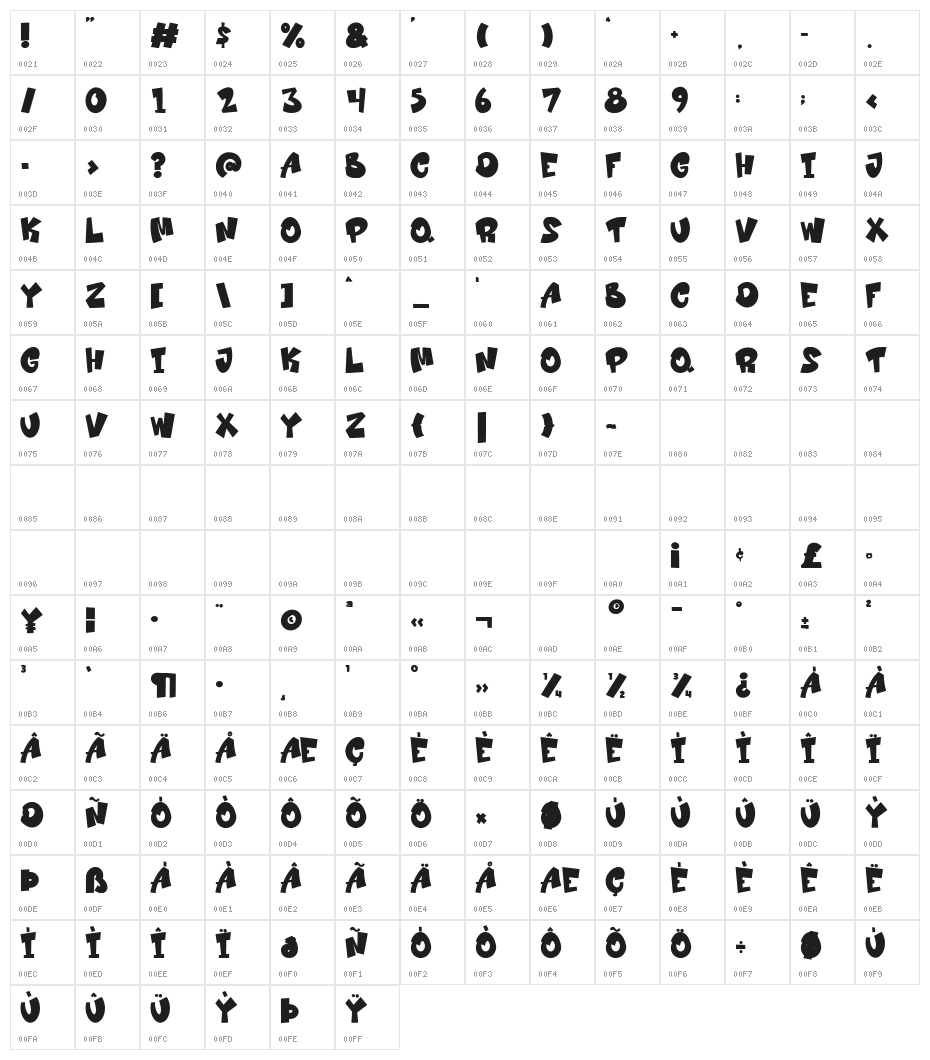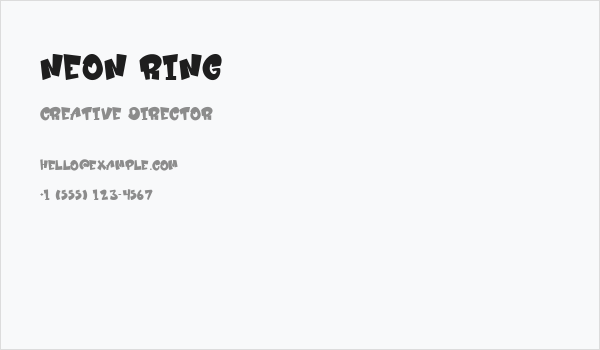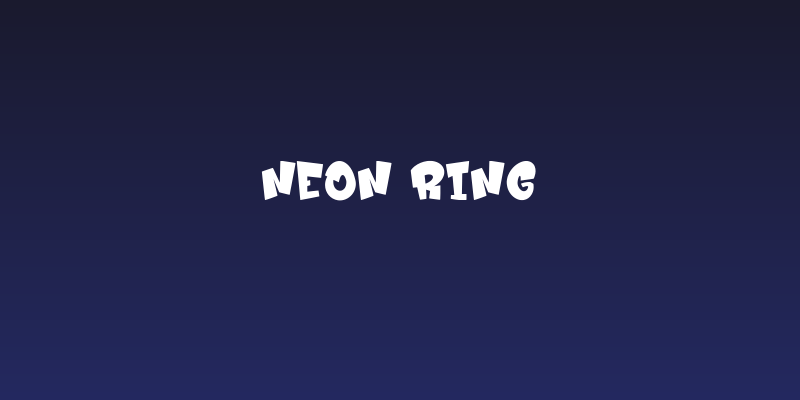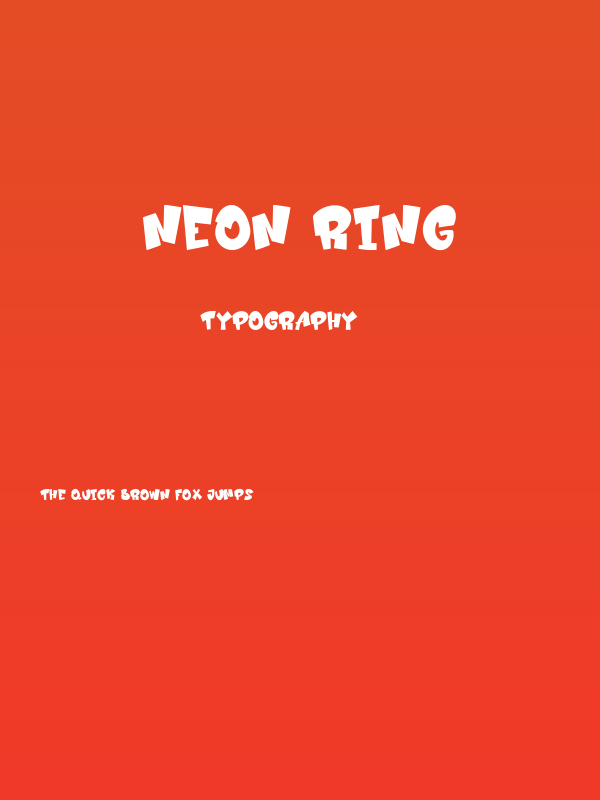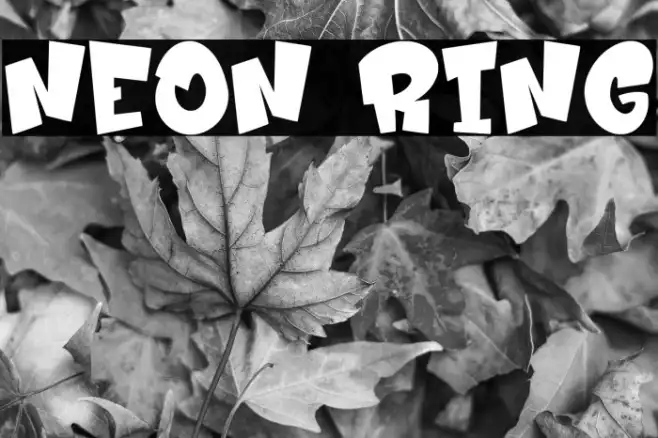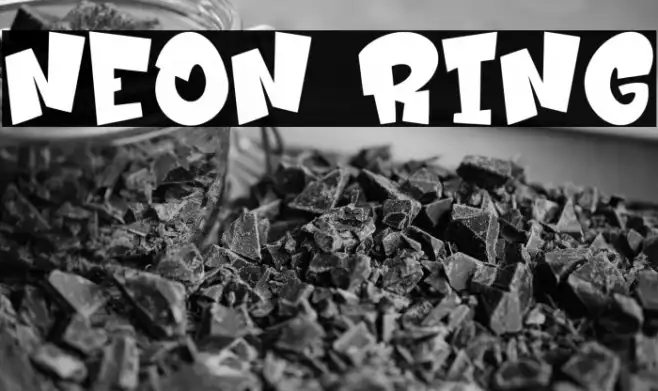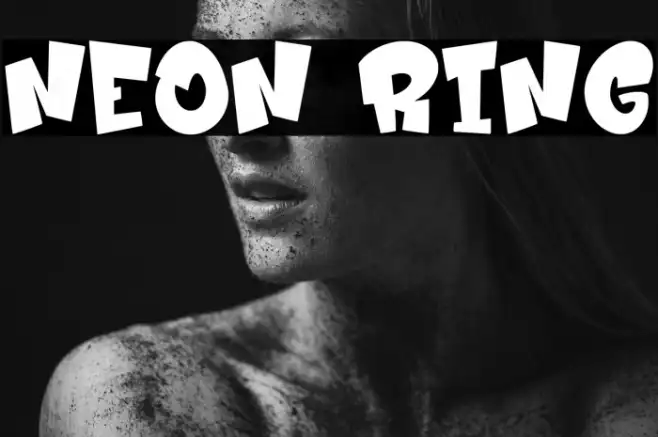
Neon Ring Font
Neon Ring Description
This font features a bold and playful style, characterized by its thick, uneven strokes and dynamic, cartoon-like appearance. The letters are slightly tilted and vary in width, giving a lively and energetic feel. The uppercase and lowercase letters maintain a consistent style, with exaggerated curves and angles that add to its whimsical nature. The numbers and special characters follow the same playful design, making it suitable for creative and informal projects. Its boldness ensures high visibility, making it ideal for eye-catching designs.
| Overall Style | Playful, Cartoonish, Energetic |
| Proposed Projects | Ideal for children's books, comic strips, playful branding, and party invitations. |